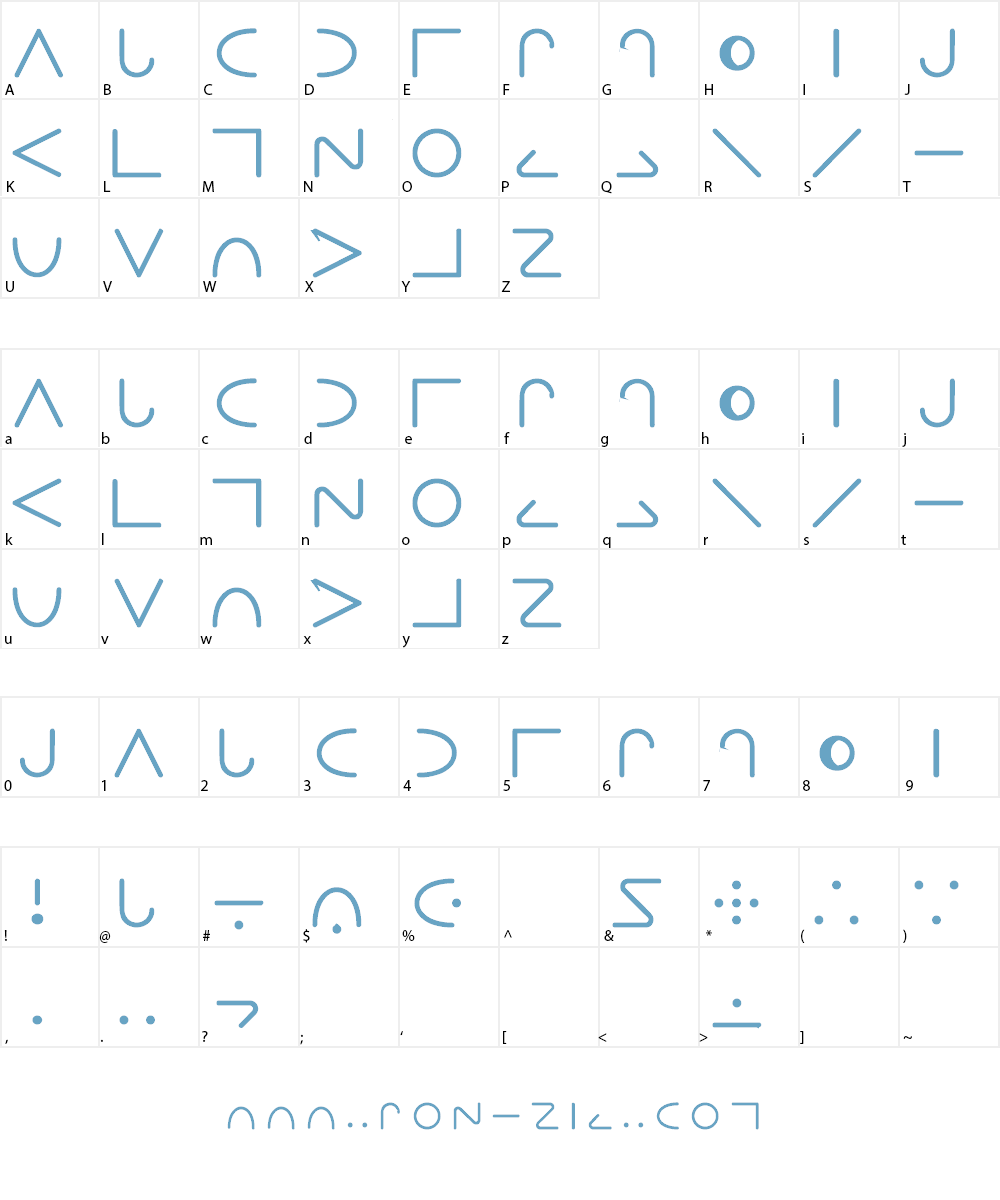
Moon allows people who are blind or partially sighted to read by touch. It is a code of raised shapes and takes its name from its blind English inventor, Dr William Moon.